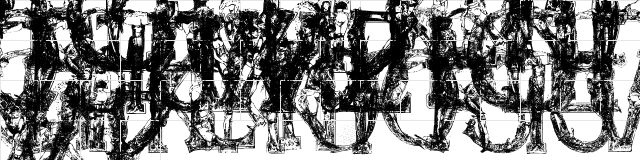
Apoux Regular
| Copyright | Alphabet Pornographique by Joseph Apoux, France c. 1880. Fonted by bobistheowl for Metaphase Brothel Graphix, 2007. |
Design Context for Apoux Typeface
Apoux is a composed and adaptable typeface that performs quietly and consistently across a wide range of design contexts.